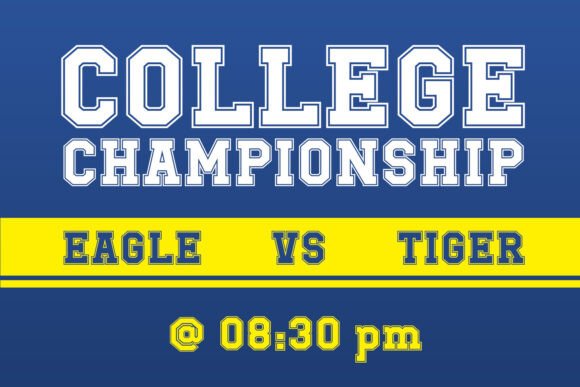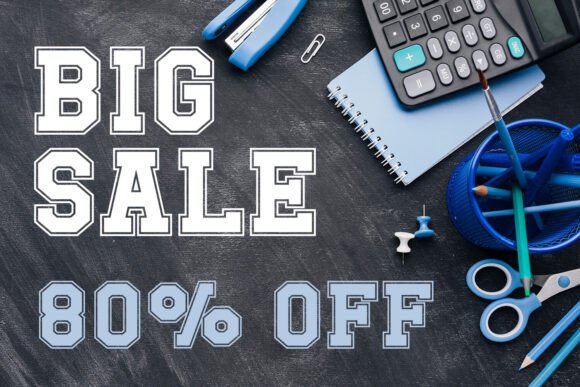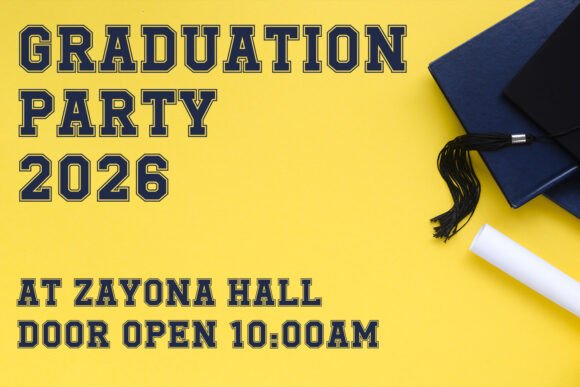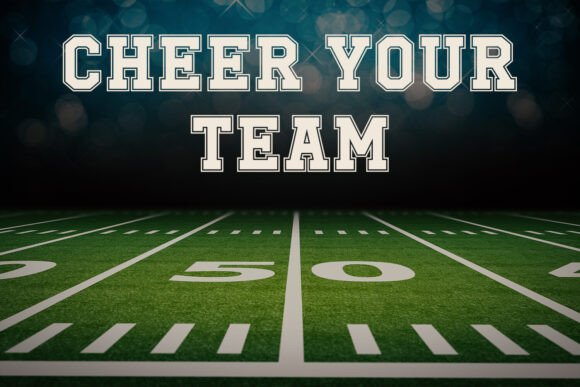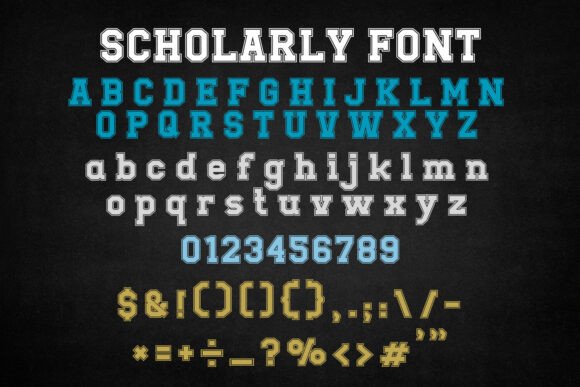
Introduction to Scholarly Font
Have you ever stared at a blank page, trying to find the perfect font to match your creative vision? It’s that moment when you realize the right typography can make all the difference in bringing your project to life. For designers and writers, finding a font that exudes professionalism and sophistication can be a challenge.
That’s where Scholarly Font comes in – a timeless, elegant design that’s perfect for academic papers, books, presentations, and more. With its clean lines and high-quality aesthetic, this font is a valuable resource for anyone looking to elevate their written work and create a lasting impression.
Whether you’re working on a creative project or simply need a reliable design resource, Scholarly Font is a free download that’s sure to meet your needs. Its transparent background and versatile style make it an ideal choice for a wide range of applications, from professional presentations to personal blogs.
Scholarly Font
- High-quality, professional font ideal for academic and creative projects
- Designed with a clean and sophisticated aesthetic, perfect for academic papers, presentations, and creative projects
Honest Review: Scholarly Font
I’ve recently come across the Scholarly Font, and I’m excited to share my thoughts on this design resource. As a designer, I’m always on the lookout for high-quality fonts that can elevate my creative projects.
- ✨ Clear and legible characters: The Scholarly Font is designed to be easy to read, making it perfect for academic or professional settings.
- ✨ High quality design: The font’s aesthetic is sophisticated and elegant, making it a great addition to any design project.
- ⚠️ Limited customization options: While the font itself is great, there are limited options for customizing it, which may be a drawback for some designers.
- ⚠️ No transparent background option: If you’re looking for a font with a transparent background, you may need to look elsewhere.
Overall, I’m impressed with the Scholarly Font. It’s a solid addition to any designer’s toolkit, and its high quality design and clear characters make it a great choice for creative projects. While it may have some limitations, it’s definitely worth checking out if you’re looking for a free and high-quality font.
Tips for Getting the Most Out of Scholarly Font
Use Scholarly Font on a transparent background to create a high-quality design resource. This font is perfect for a creative project that requires a sophisticated and professional look.
Scholarly Font is ideal for academic and professional presentations, reports, and documents. It’s also a great choice for designing business cards, brochures, and other marketing materials that require a high-quality font.
Alternatives to Scholarly Font
1. Playfair Display
Playfair Display is a high-quality, elegant serif font perfect for creative projects that require sophistication and refinement. It’s ideal for use in titles, headings, and other design elements where a touch of luxury is needed.
Compared to Scholarly Font, Playfair Display has a more refined and classic feel, making it suitable for a wide range of design resources, including business cards, invitations, and more.